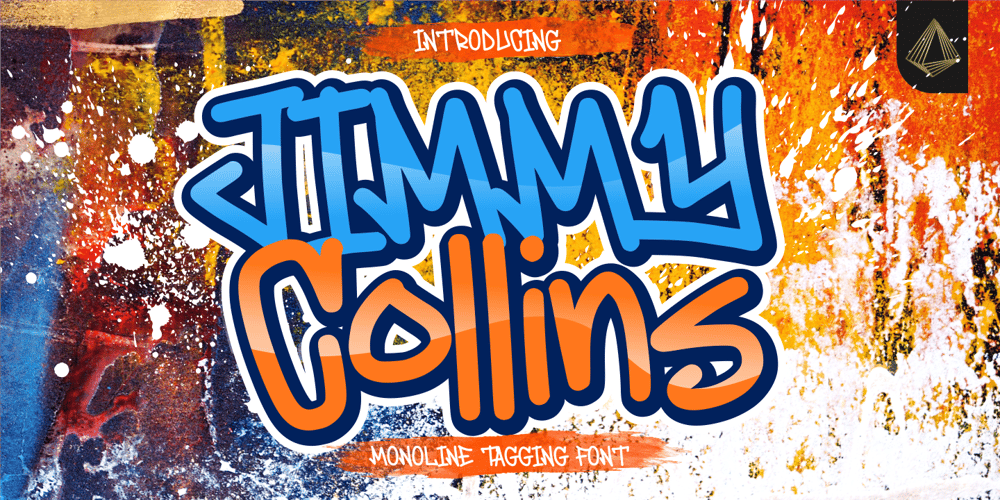
Jimmy Collins Font Family was designed by Fachrizal Yusuf and published by Allouse Studio. Jimmy Collins contains 1 styles and family package options. Proudly Presenting, Jimmy Collins a Monoline Tagging Font.Jimmy Collins is perfect for any tittles, logo, product packaging, branding project, megazine, social media, wedding, or just used to express words above the background.Jimmy Collins come with lowercase ending swash and Multi-Lingual Support.Enjoy the font, feel free to comment or feedback, send me PM or email. Thank You!